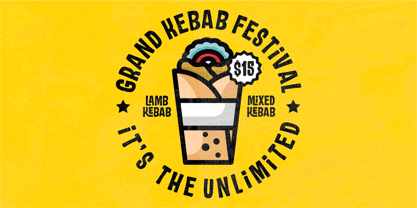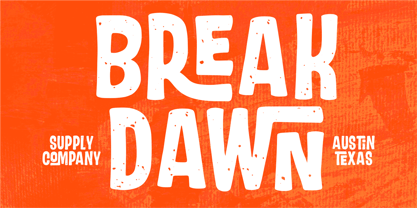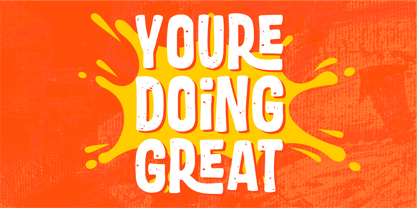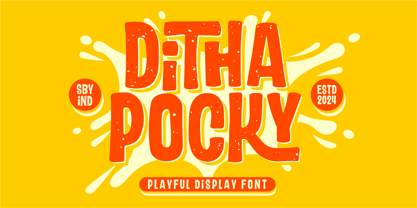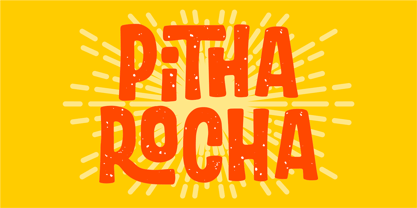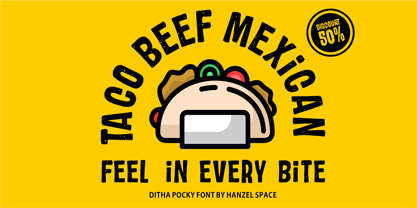
Ditha Pocky
The Ditha Pocky Font Family was designed by Hanief Farandi and published by Hanzel Space. Ditha Pocky contains 1 styles. More about this family
Introducing Ditha Pocky, our new and fun font collection. It combines modern, playful, and formal together. It contains so many alternates and ligatures that you can use it for more fun on your projects.
Ditha Pocky font is ideal for branding projects or packaging that need a quirky and playful feel. Perfect for a wide range of applications, from crafting eye-catching headings and dynamic logotypes to bringing energy to quotes, apparel, invitations, flyers, posters, greeting cards, product packaging, book covers, and printed quotes.